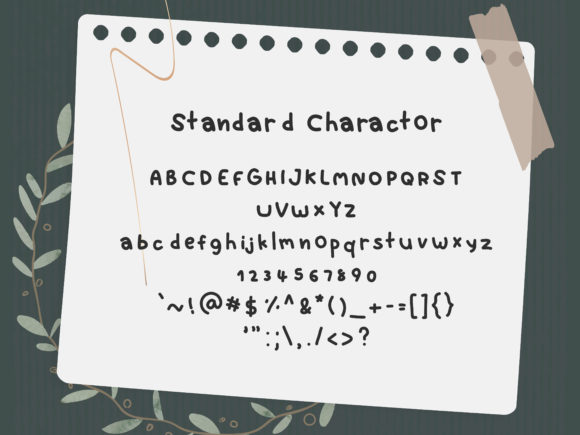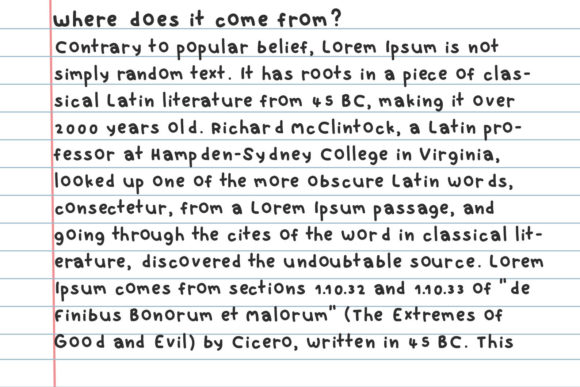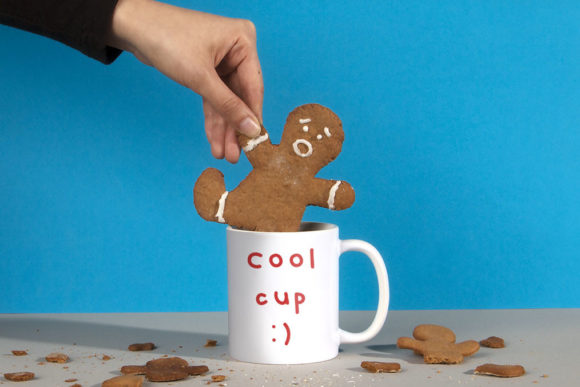
Introduction to Megan Font Font
Fonts play a crucial role in design, and the Megan Font font is a typeface that brings both character and versatility to any project. Whether you’re working on a branding project, a website, or a print design, the Megan Font font offers a unique style that can elevate your work.
Megan font is a cute handwritten font that will look perfectly on any project you plan to create.
It looks stunning on wedding invitations, thank you cards, quotes, greeting cards, logos, business cards, and every other design which needs a handwritten touch .
Key Features of Megan Font Font
Why Choose Megan Font Font?
The Megan Font font is more than just a typeface – it’s a design tool that helps you communicate your message with style and clarity. Its unique character set and versatile design make it suitable for a wide range of applications, from elegant invitations to bold headlines.
With its carefully crafted letterforms and balanced proportions, the Megan Font font ensures readability and visual appeal across all mediums.
What makes Megan Font font special?
The Megan Font font stands out with its unique design, exceptional readability, and versatility across various design applications.